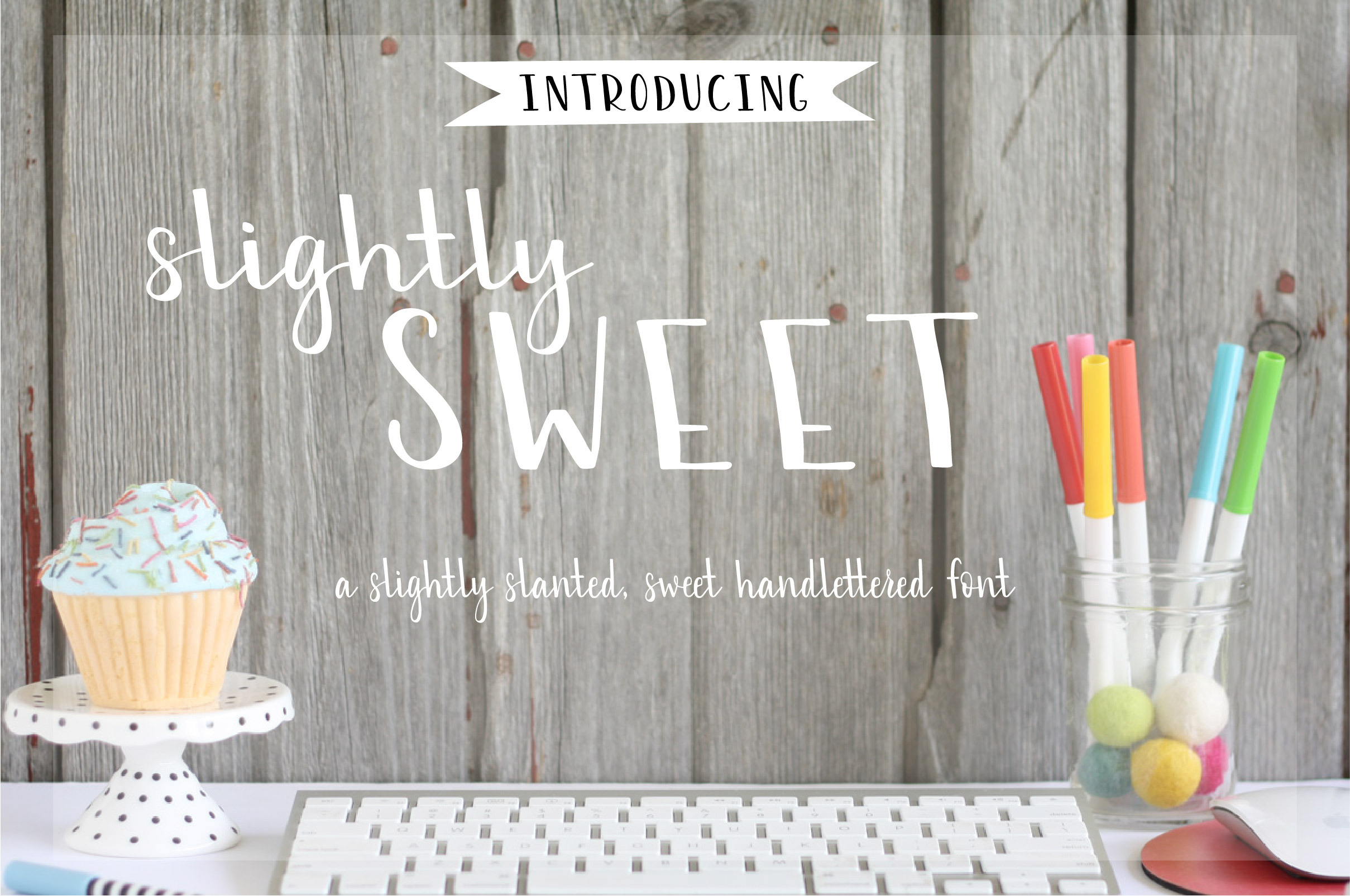
A slightly slanted, sweetly handwritten font.
This sweet font is perfect for printables, digital designs, greeting cards, business packaging, social media and more.
A Sans Serif uppercase Cap style font, A lowercase handwritten script font, complete symbols and numbers, and standard ligatures for common letter combinations.